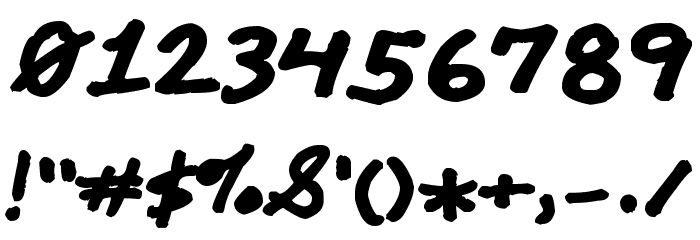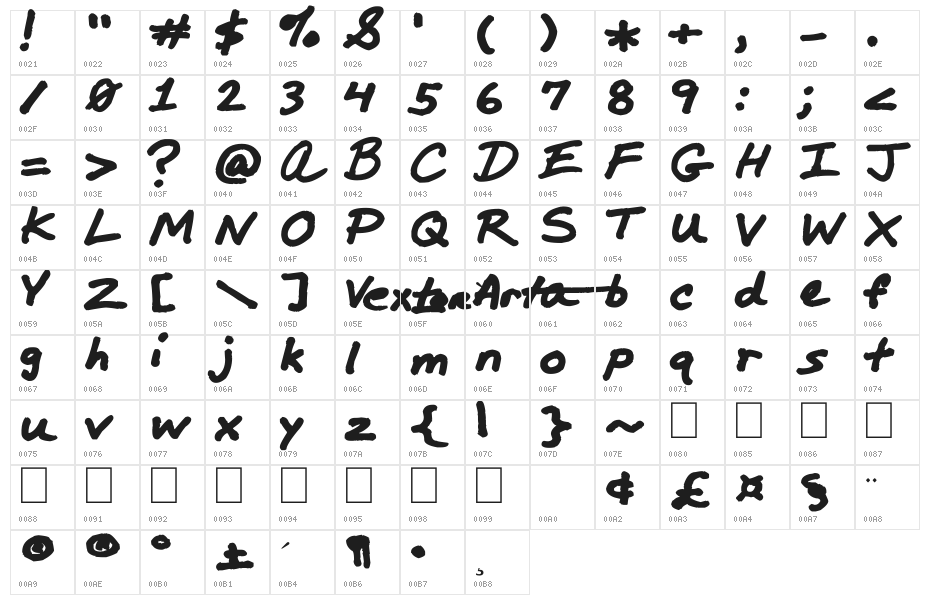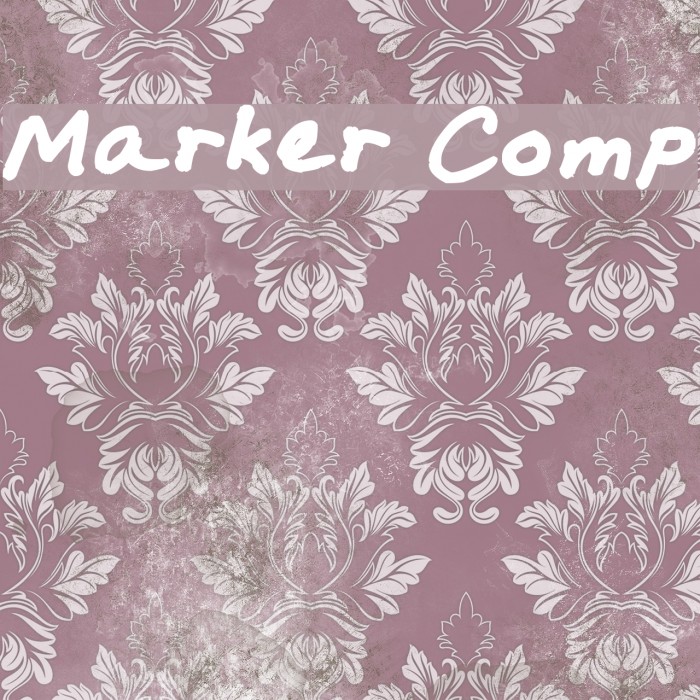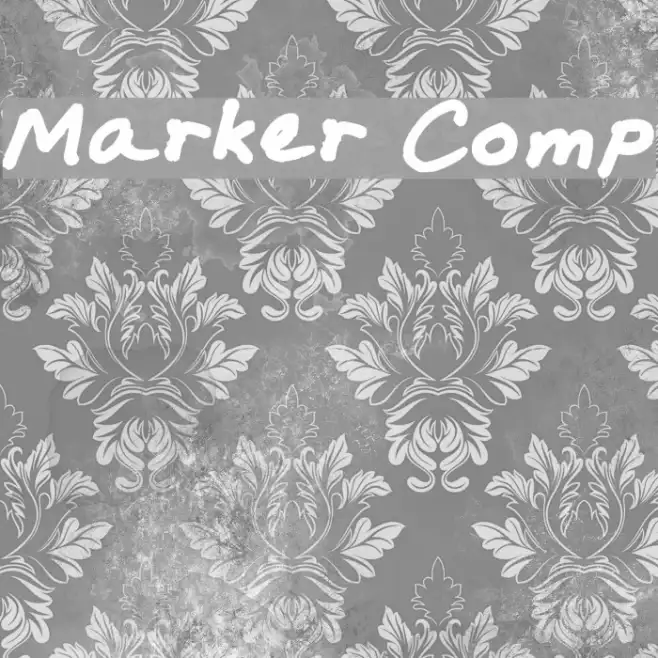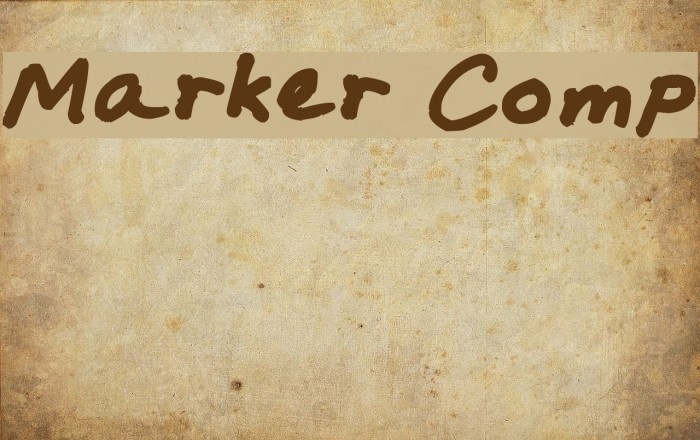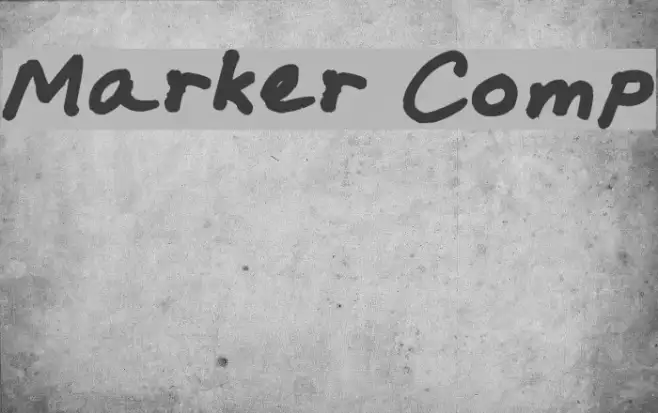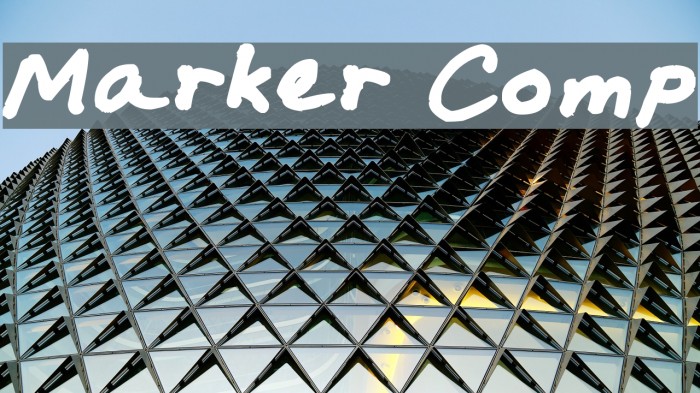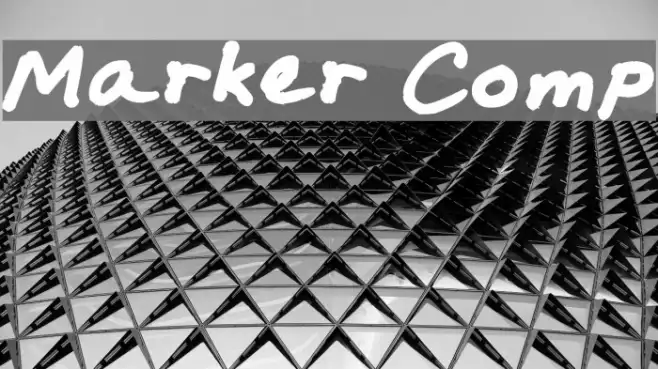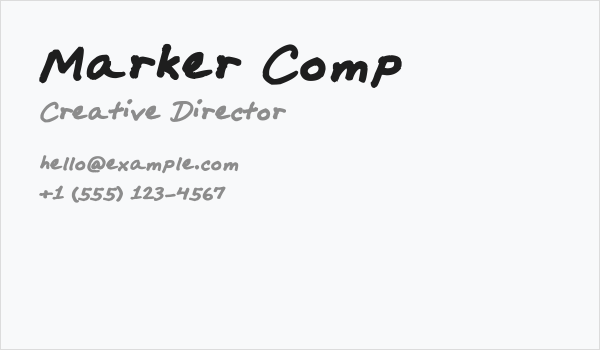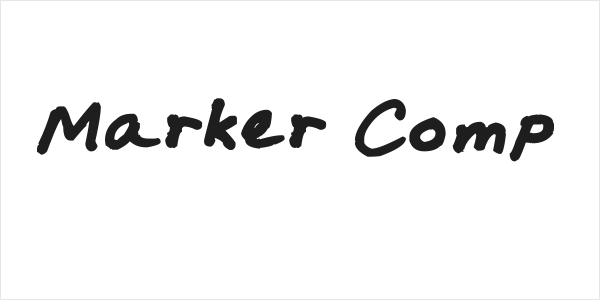
Marker Comp Font
Marker Comp Description
This font exudes a casual, handwritten style reminiscent of marker or brush strokes. The characters are bold and slightly slanted, giving a dynamic and energetic feel. The uppercase and lowercase letters maintain a consistent flow, with rounded edges and a playful appearance. Numbers and special characters follow the same style, ensuring uniformity across all glyphs. The overall impression is informal yet clear, making it suitable for projects that require a personal touch.